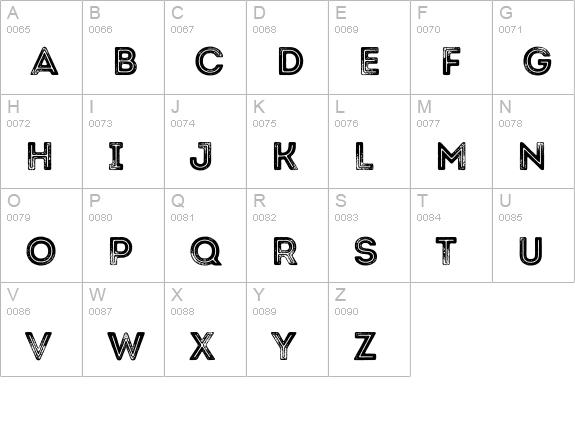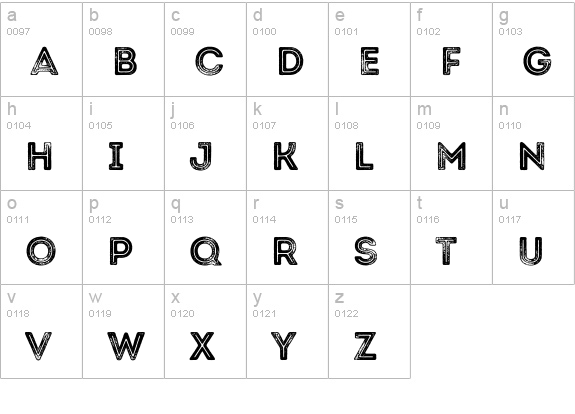
Intro Rust G Base 2 Line font is a modern and stylish typeface that exudes sophistication and elegance. The clean, bold lines of this font make it perfect for a wide range of design projects, from logos to branding to posters. The two-line design adds an extra touch of visual interest, making your text stand out in a unique and eye-catching way. The best part? Intro Rust G Base 2 Line font is completely free to download at FontsMarket.com. Whether you're a professional designer looking for a versatile and high-quality font or just someone who loves experimenting with different typography styles, this font is sure to impress. Don't miss out on the opportunity to add this fantastic font to your collection today!